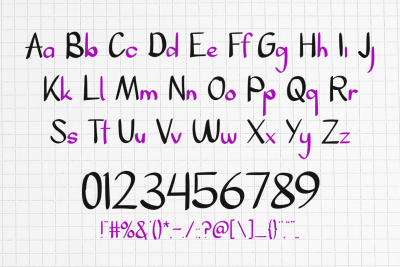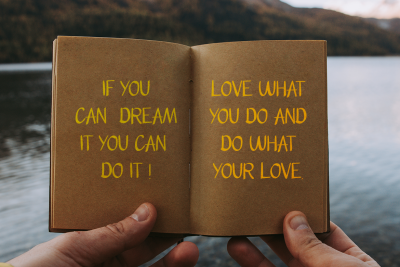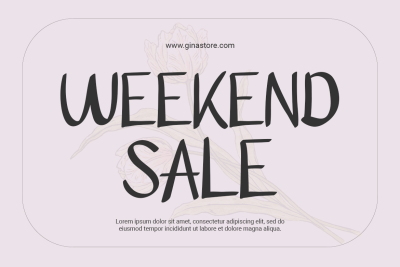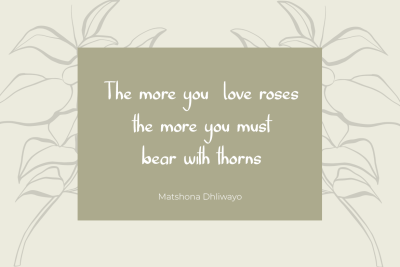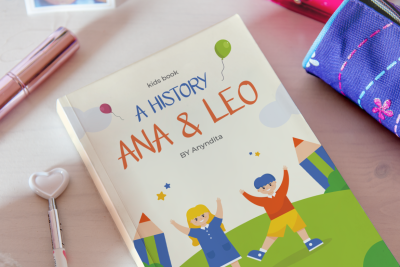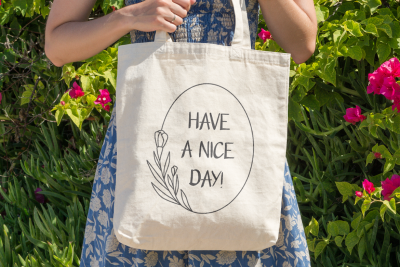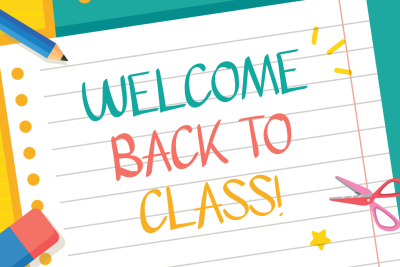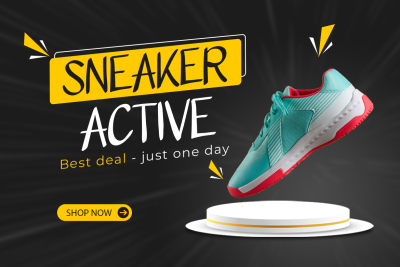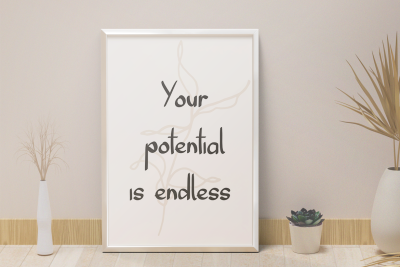
Handwriting Font APOLOGIZE is a fun, energetic, and modern typeface. It brings a bold, personal touch to any design. Moreover, its smooth, handwritten strokes create a natural and expressive style. This makes it perfect for projects needing a fresh and friendly look. Whether for branding, digital content, or marketing materials, APOLOGIZE adds vibrant personality to every word.
With a playful yet professional appeal, APOLOGIZE balances casual and polished typography. Furthermore, its dynamic, fluid letterforms capture handwritingโs essence, giving designs an authentic feel. Well-crafted spacing ensures clarity and readability in both digital and print applications. As a result, this font enhances the visual impact of any project.
Additionally, APOLOGIZE is highly versatile. It adapts to various creative needs. Whether paired with minimalist backgrounds or bold, colorful compositions, this font seamlessly enhances any design. Consequently, its lively and eye-catching nature makes it a fantastic choice for designers seeking originality and modernity.
Handwriting Font APOLOGIZE For?
APOLOGIZE is ideal for designers, content creators, and entrepreneurs adding a fun, handwritten touch to their work. This font suits:
- Branding & Logo Designers: Great for lifestyle brands, creative agencies, and personal brands needing a friendly identity. Additionally, it ensures a modern and engaging appeal.
- Social Media Creators & Influencers: Perfect for Instagram captions, Pinterest graphics, and YouTube thumbnails with a handwritten charm. Consequently, it helps content stand out and attract engagement.
- Marketing & Advertising Professionals: Enhances promotional materials, packaging, and advertisements with an eye-catching, unique look. As a result, it effectively conveys brand messaging.
- Event Planners & Invitation Designers: A fantastic choice for wedding invitations, greeting cards, and event posters with a playful feel. Furthermore, it adds an elegant yet casual touch to special occasions.
- DIY & Printable Designers: Suitable for planners, journals, scrapbooking, and printable quotes needing stylish handwriting. Consequently, it brings a warm and artistic element to handmade projects.
No matter your creative vision, Handwriting Font APOLOGIZE delivers a fresh, engaging style. Moreover, its bold yet friendly appeal makes it perfect for creating impactful visuals. Whether for branding, social media, or events, APOLOGIZE ensures every word stands out with energy and style.